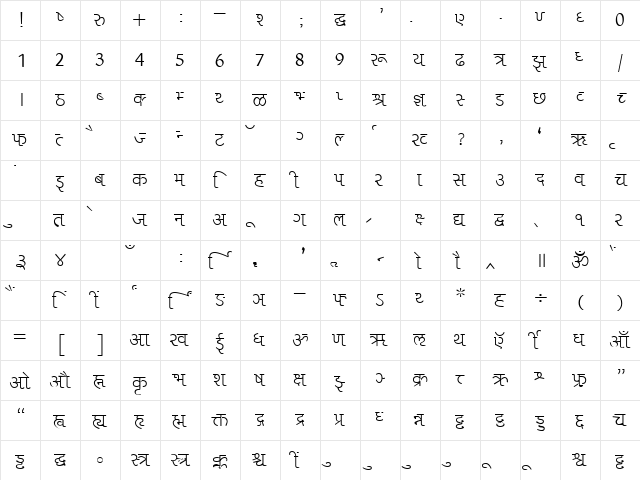
Liza Normal Font Preview
Liza Normal
Liza Normal Font Details
Design Context for Liza Typeface
Liza takes a measured approach to typography — its balanced proportions and neutral character make it a reliable workhorse for both digital and print work.